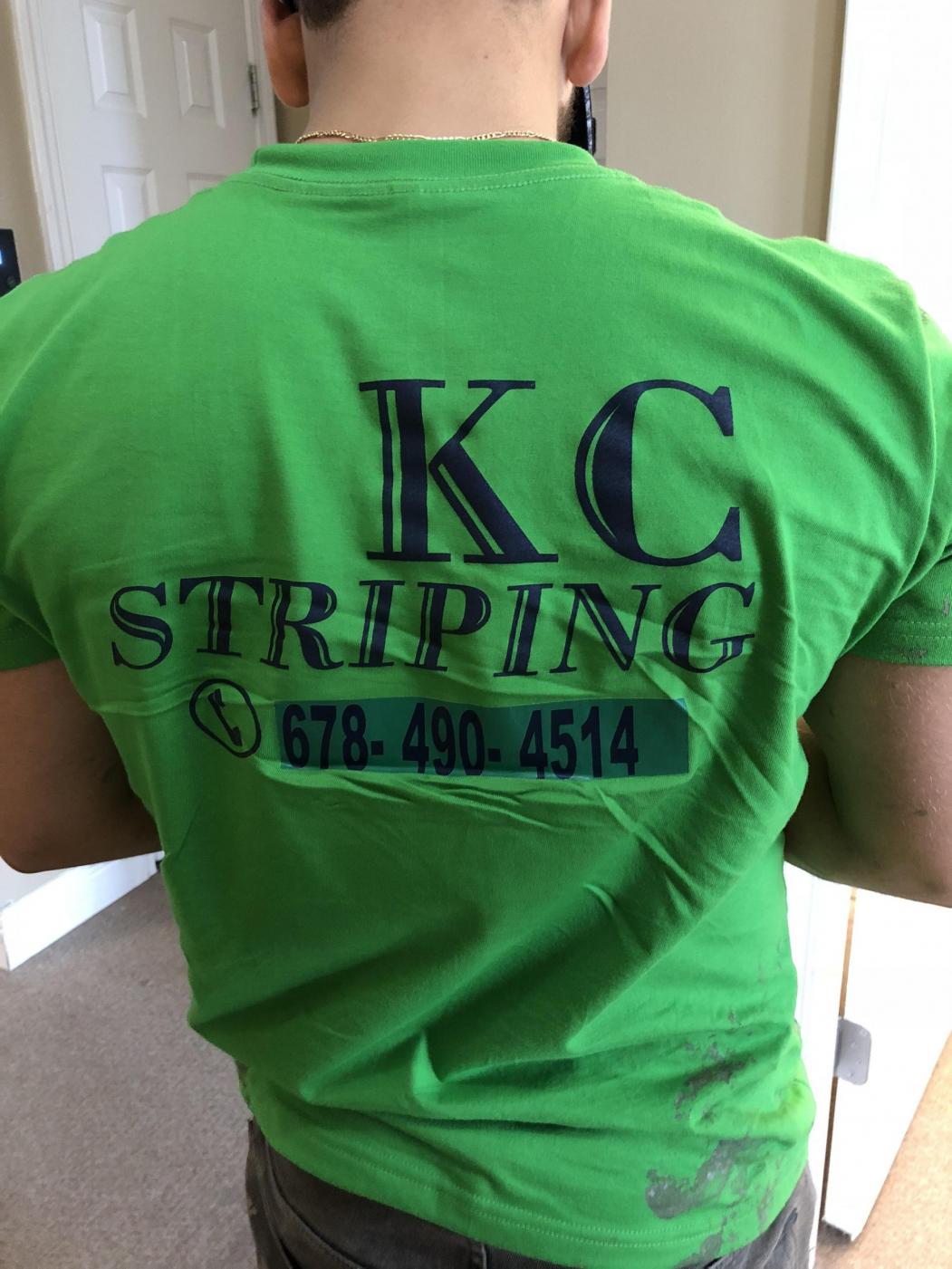
KC Striping shirt font
I traced out KC with the pen tool but every 'find my font' site I usually go to has been a waste of time. A client of mine emailed this picture over– he wants me to redo this, which I thought would be simple. I'd like it to look as crisp as possible (therefore I don't think my pen tool skills are good enough) :') Thanks for your time!
I saw the picture and immediately thought of ‘Century Handtooled’ — but on closer inspection, the font is most definitely ‘Bodoni Open’ — the closest version I have found is ‘OPTIBodoni-Open’ — hopefully this will suffice?  > https://www.whatfontis.com/OPTIBodoni-Open.font  Please note: some of the details from lettering on the t-shirt have been modified — also, there does not appear to be an ‘italic’ version of this font so you may need to skew the word ‘Striping’ yourself.   What software are you working with?